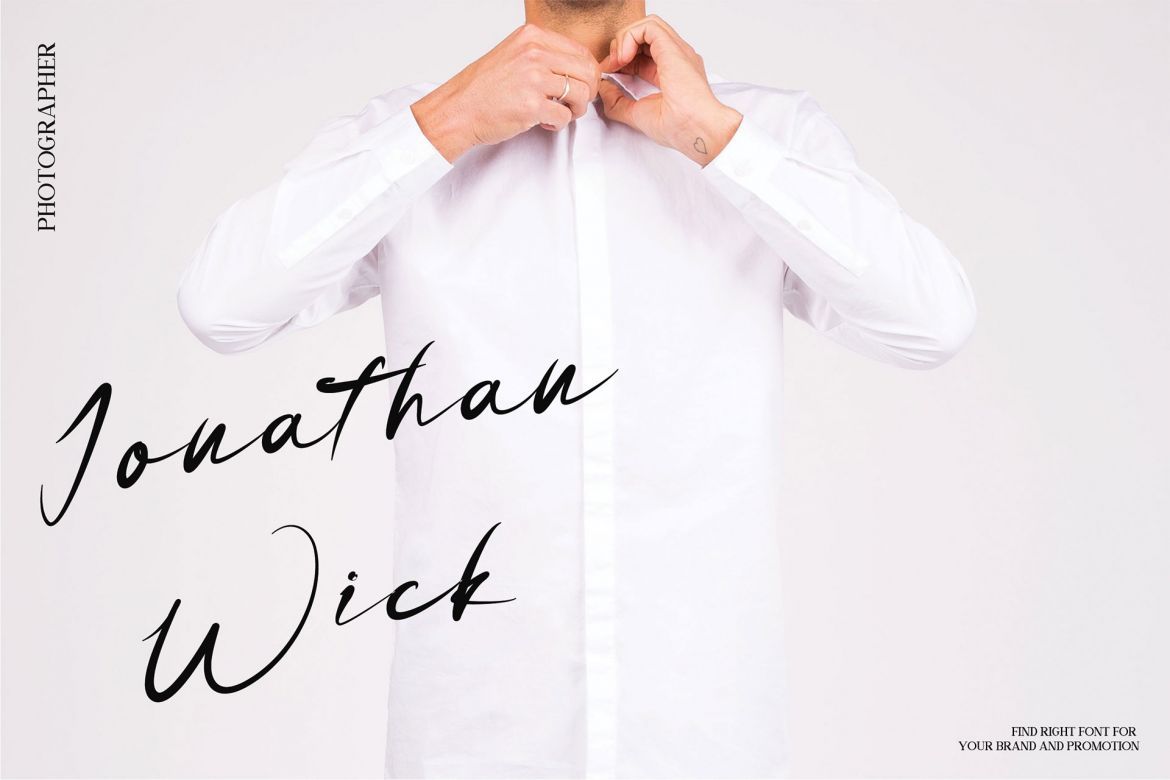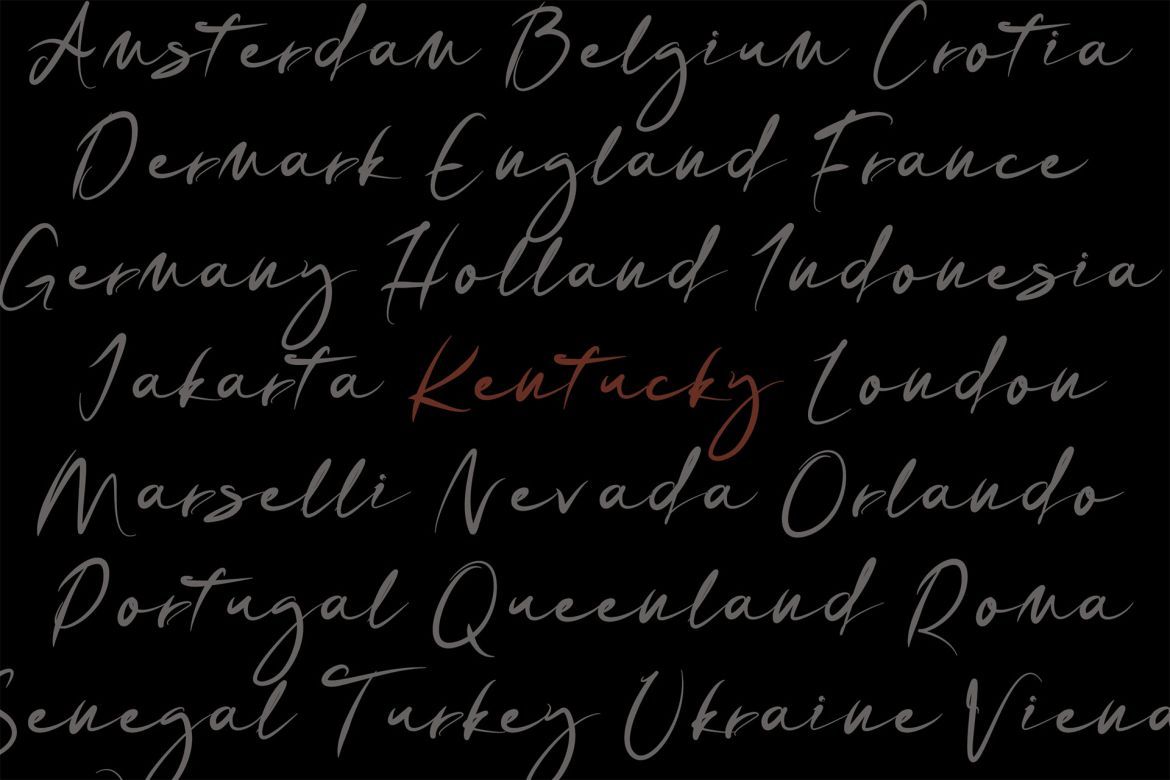
Velguife - Script Font
Introducing – Velguife – Script font is a beautiful and modern handwritten font script. This elegant and beautiful font is stylish and versatile so you can use in a plethora of designs in both digital and print applications.
Velguife is a simple and classy handwritten font, this font looks elegant, classy, readable, stylish, catchy and easy to use.
Velguife is the best choice for your professional design projects, including signature, watermark on photography, quotes, wedding, fashion, letter, invitation, business card, logo, branding, magazines, social media, advertisements, product designs, and much other design projects.
• the perfect font choice for powerful projects – watermarks, signatures, photography, logos, business cards, quotes, album covers.